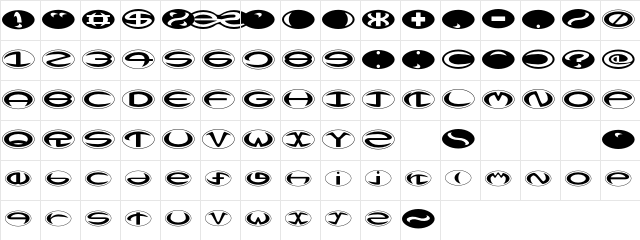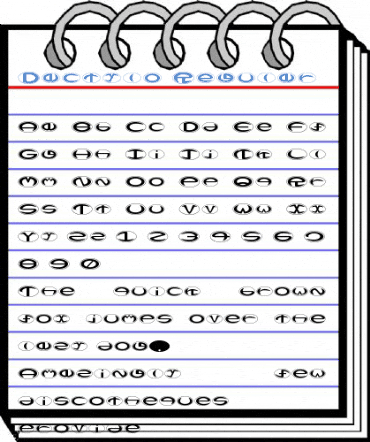
Dactylo SemiBold Free Font
Dactylo SemiBold
Design Context for Dactylo
Dactylo is a composed and adaptable typeface that performs quietly and consistently across a wide range of design contexts. Its bold stroke weight gives it real presence on the page.
Pro Tip: Use Dactylo in both headline and body roles to test its range before committing to a single application.